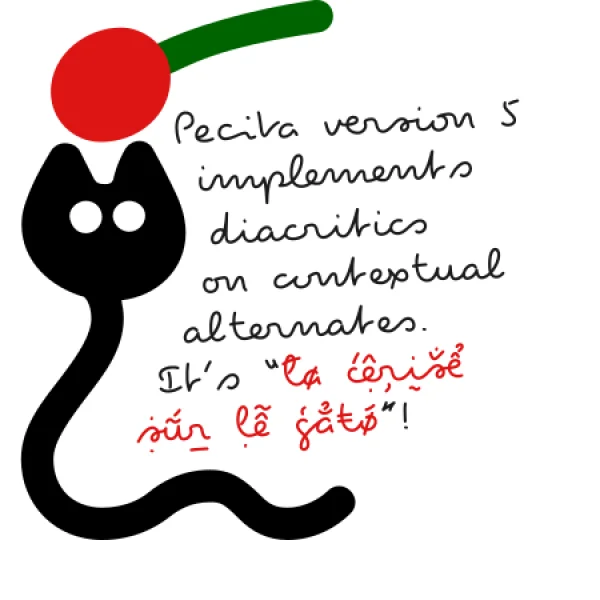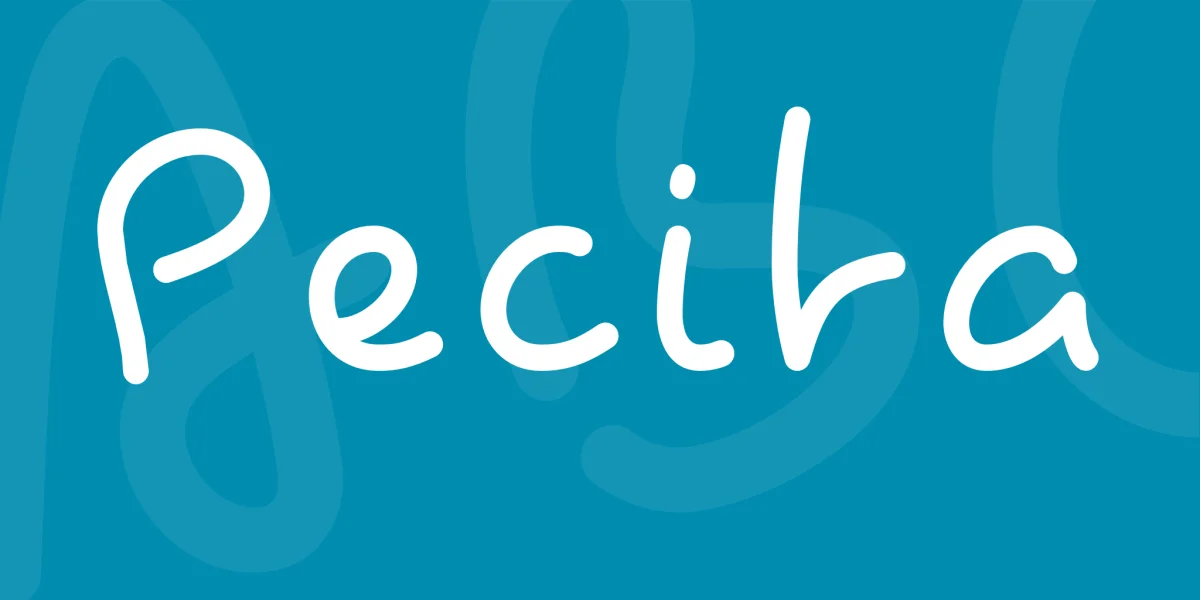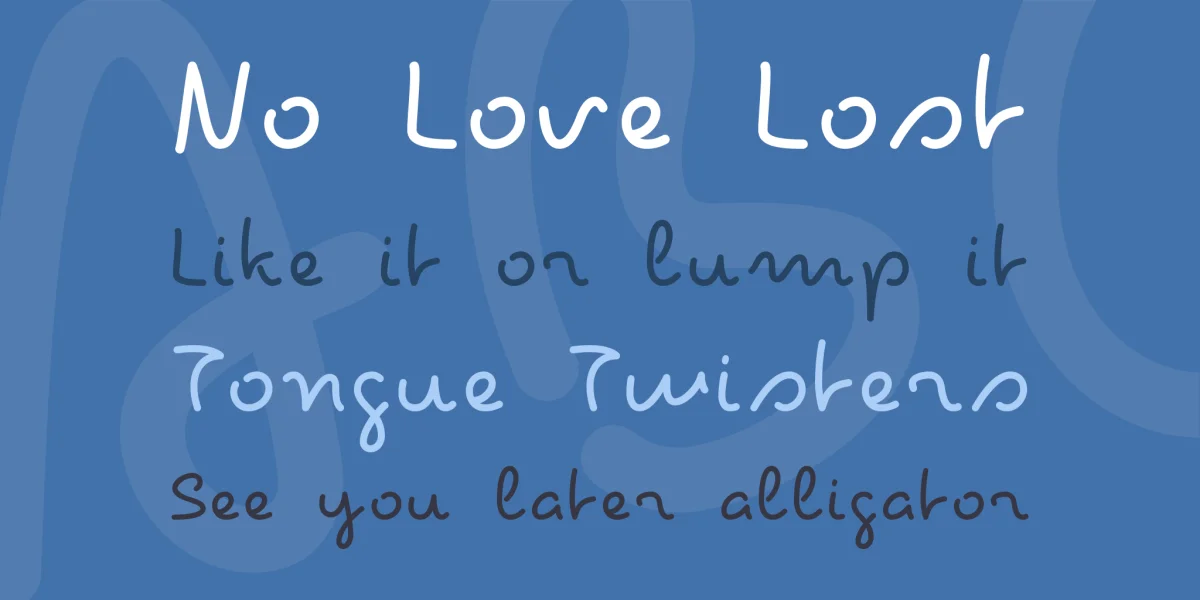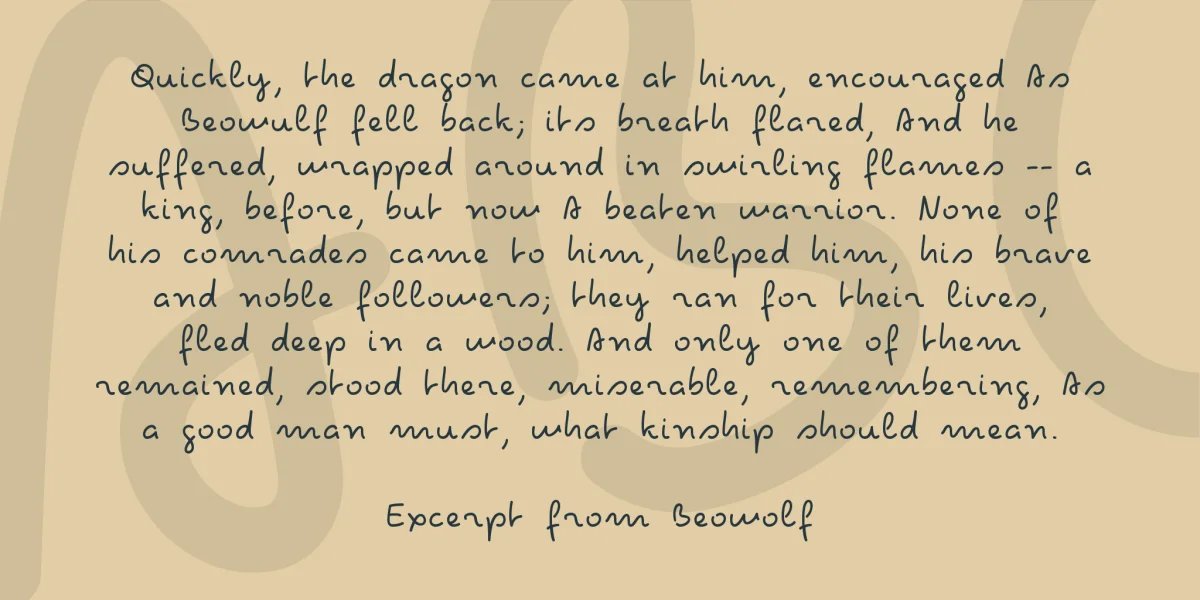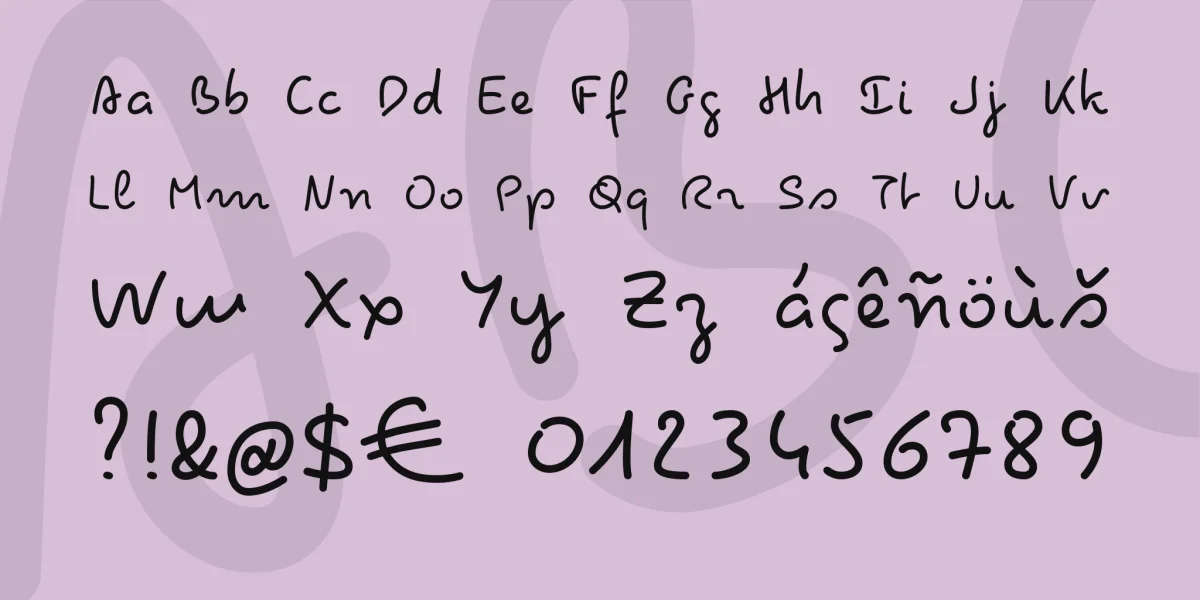
Pecita is a handwritten font with glyphs connected. It uses complex features to reach a design very similar to handwriting. The main page of the Pecita font is pecita.eu .
OpenType Features
liga=Standard Ligatures, calt=Contextual Alternates, locl=Localized Forms, rand=Randomize, smcp=Small Caps, subs=Subscripts, sups=Superscripts.